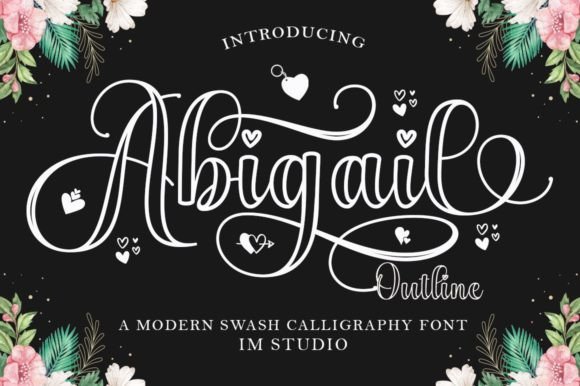
The Designer’s Delight: A Deep Dive into Abigail Outline Font
An Honest Review of Abigail Outline Font
Abigail Outline Font is a cute, versatile, and flexible handwritten font that’s perfect for a wide range of design projects. Here are some things I love about it:
- ✨ Warm and romantic feel that’s perfect for wedding invitations, birthday cards, and other special occasions
- 🎨 Flexible and versatile, suitable for a variety of design projects, from digital graphics to print materials
- 💻 PUA coded, making it easy to access all the glyphs and swashes
While Abigail Outline Font is an excellent choice, there are a few minor quirks to be aware of:
- 🤔 Some users may find the font a bit too ornate for certain projects, such as minimalist designs or body text
- ⚠️ As with any font, it’s essential to test it thoroughly to ensure it works well with your specific design
The Story Behind Abigail Outline Font
Abigail Outline Font was designed with love and care by a talented type designer who wanted to create a font that would bring a touch of warmth and romance to any project. The font’s design is inspired by traditional handwritten scripts, with a modern twist that makes it perfect for a wide range of applications.
| What is PUA coding, and how does it benefit the font? | PUA (Private Use Area) coding allows designers to access additional glyphs and swashes that are not available in standard fonts. This means you can create unique and customized designs with Abigail Outline Font. |
| Is Abigail Outline Font suitable for body text? | While Abigail Outline Font is highly legible, it may not be the best choice for body text due to its ornate nature. It’s better suited for headings, titles, and other display text. |